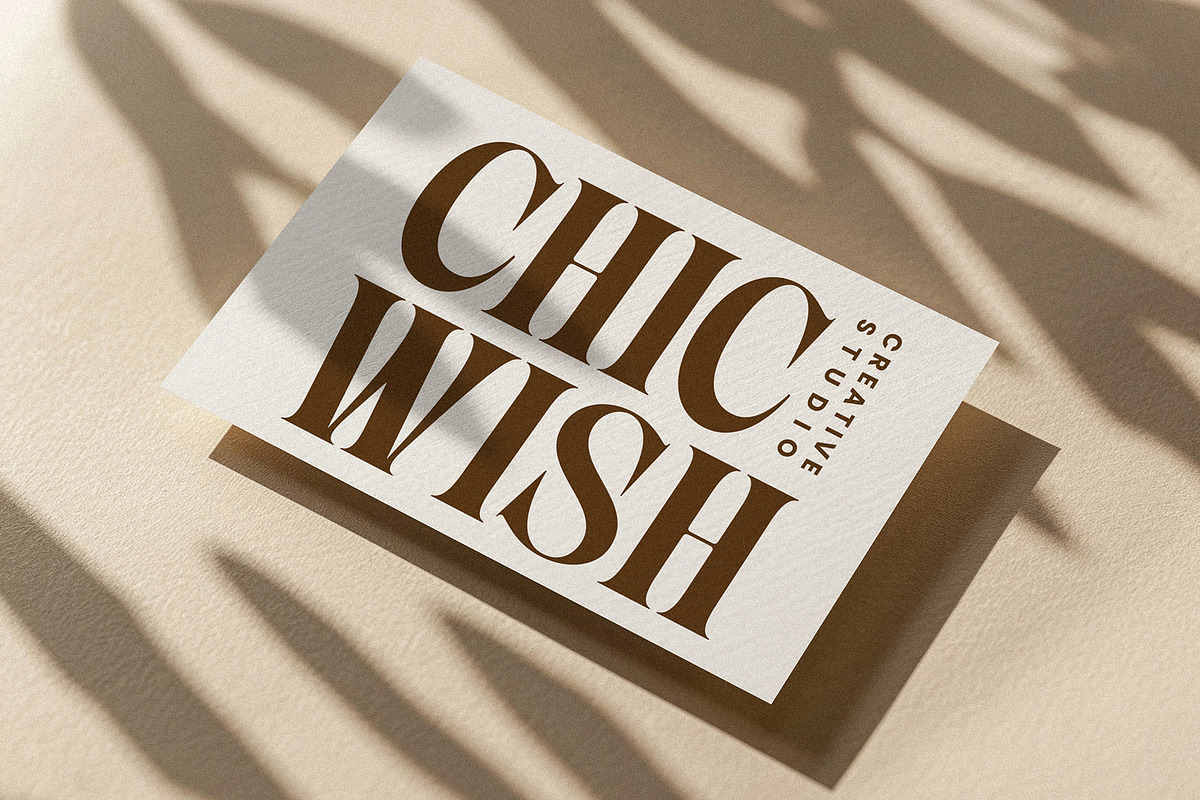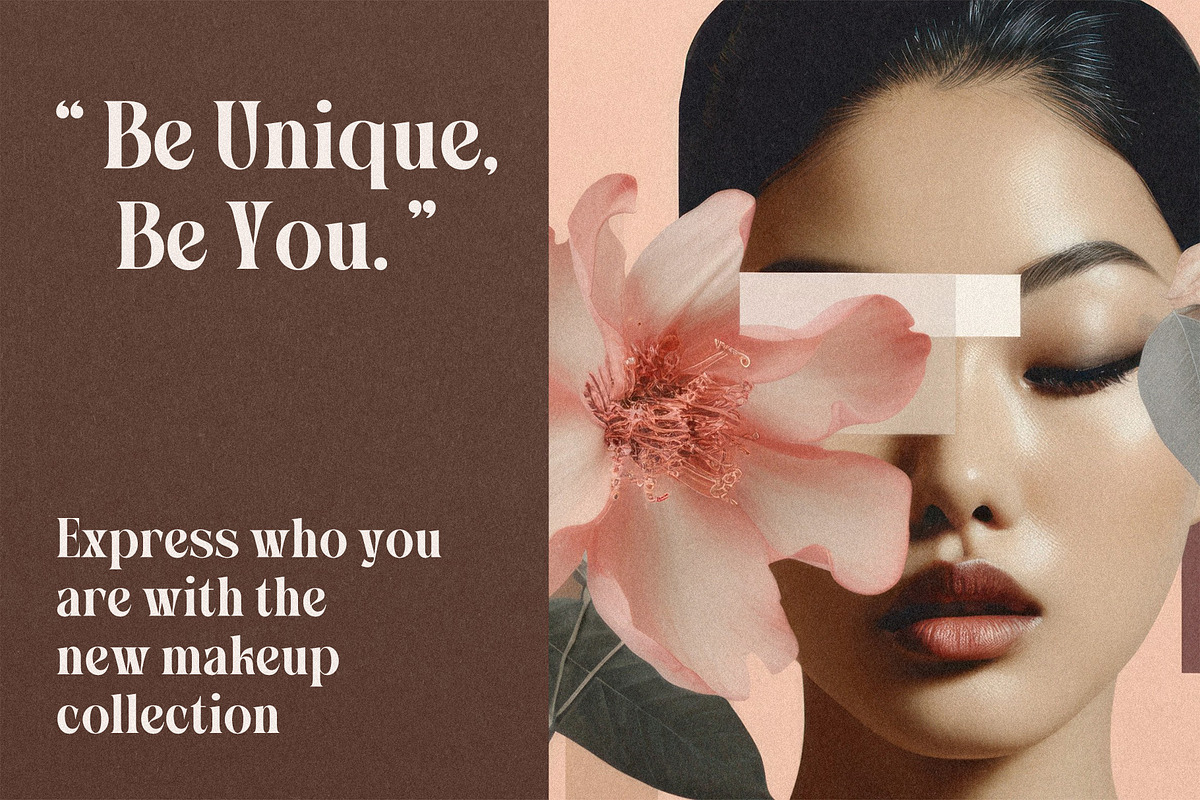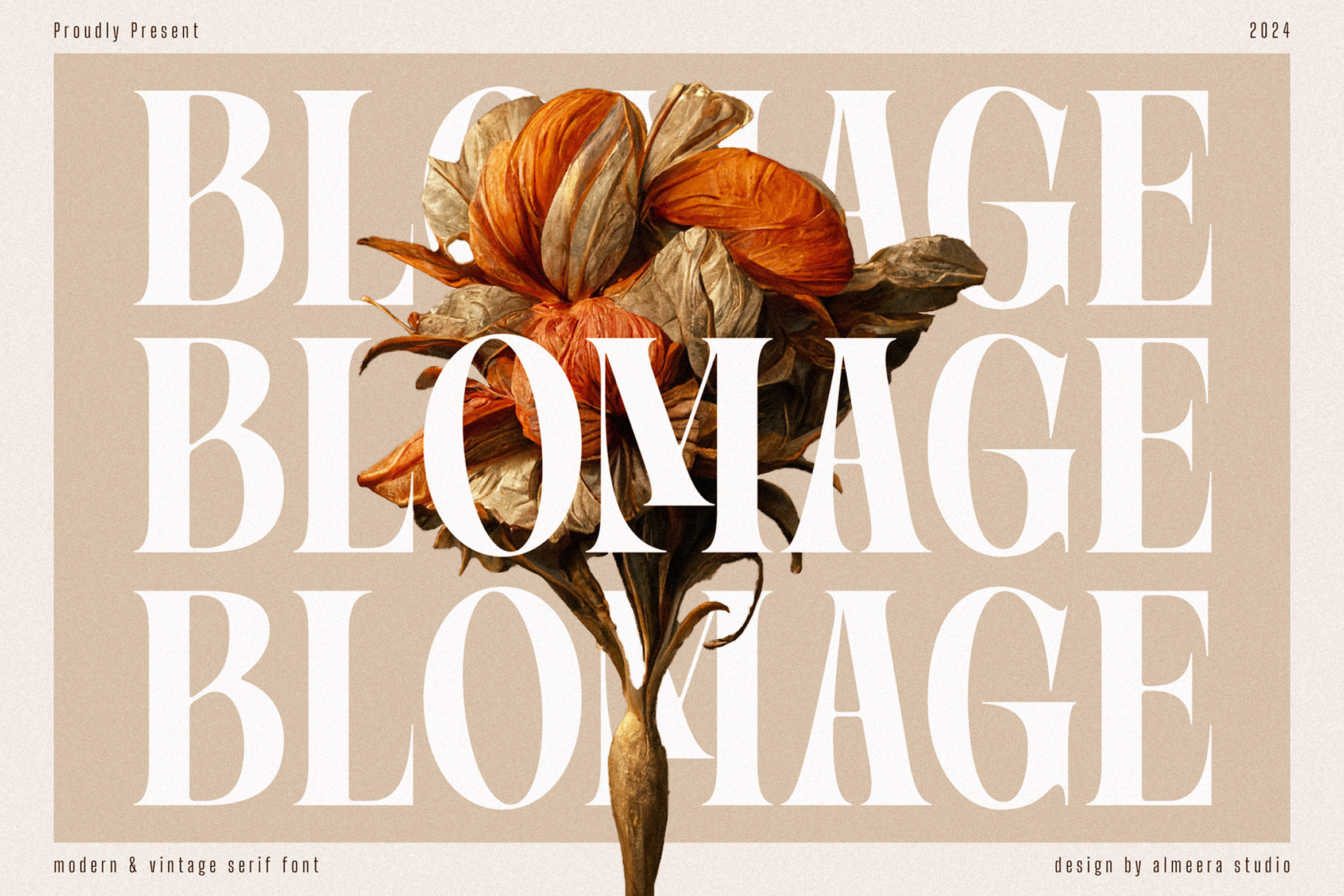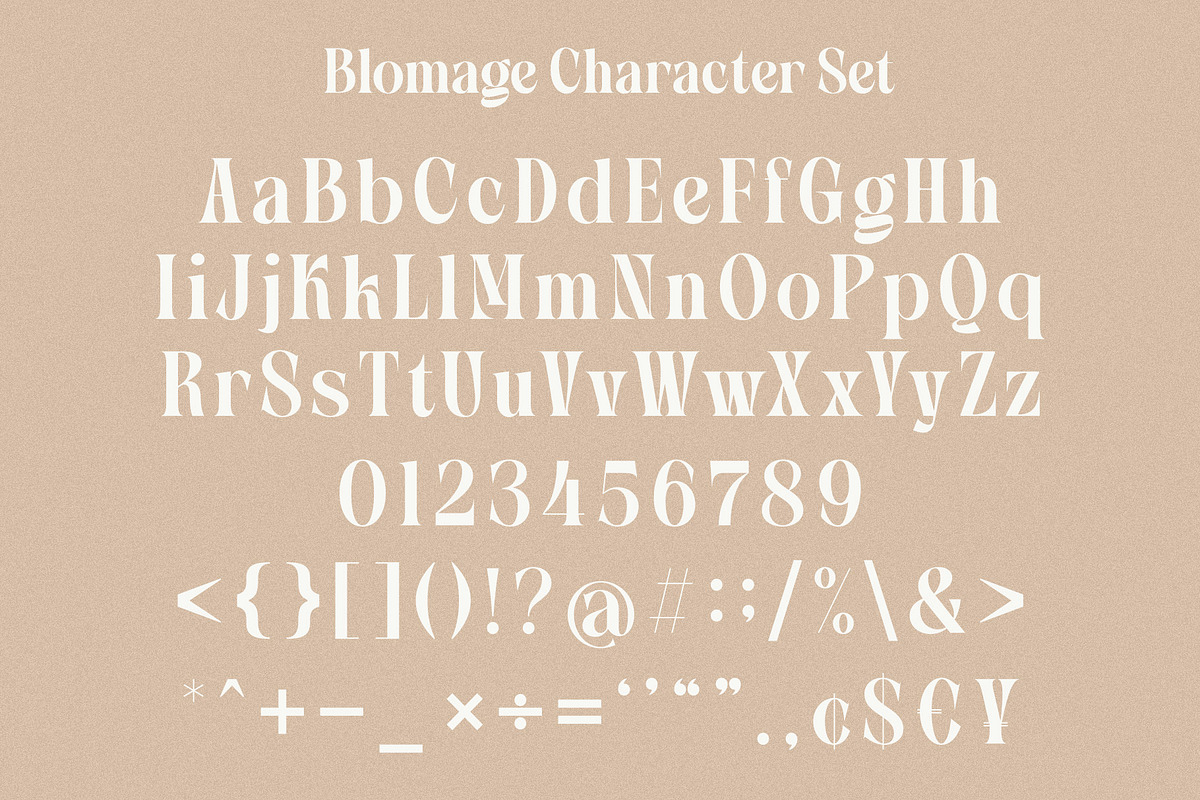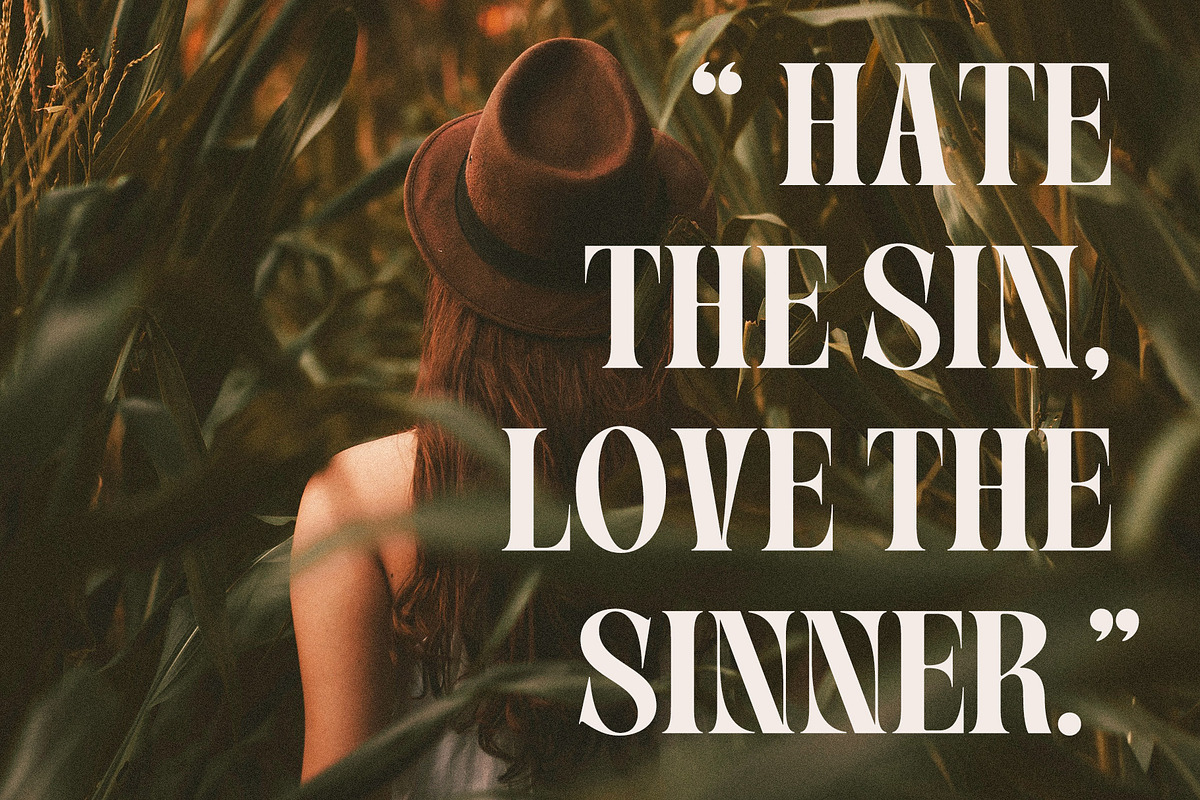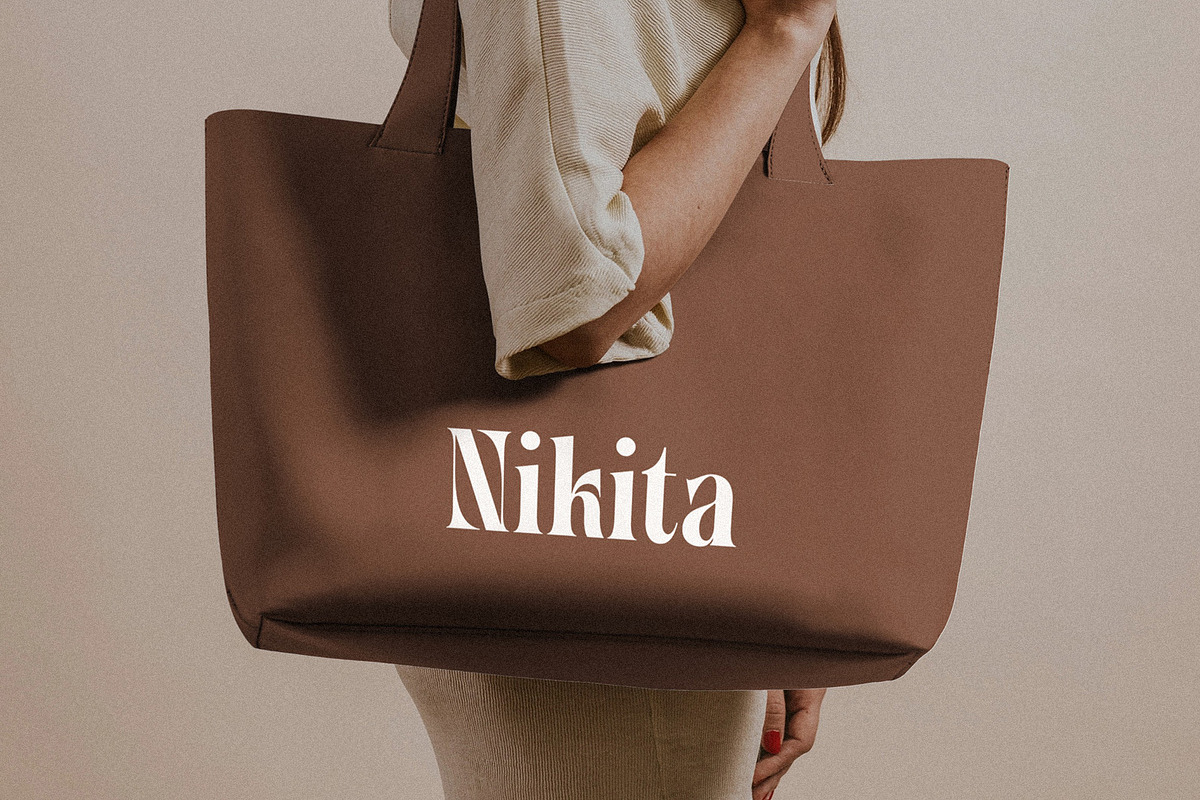
Blomage - Bold Serif Font
Introducing Blomage - Bold Serif Font. Blomage is a modern, bold and simple serif font, This type of font is very suitable for your various needs such as branding projects, logos, social media posts, advertisements, labels, product packaging, photography, wedding designs, watermarks, invitation product designs, stationery, and any project.